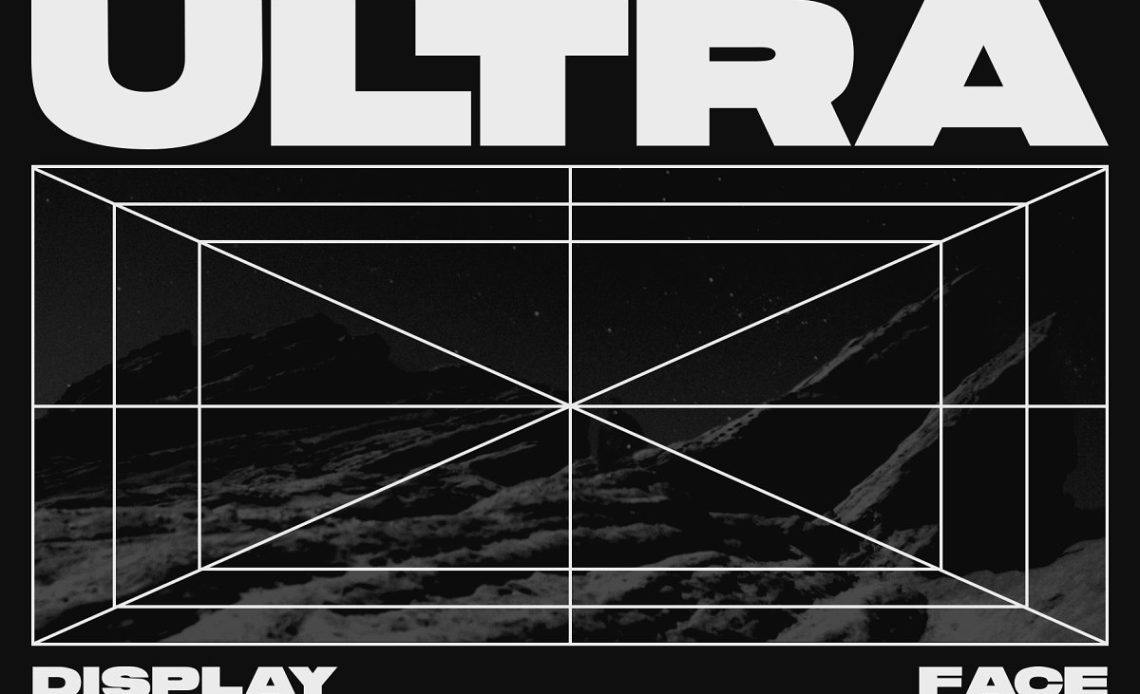
Welcome to NF ULTRA - the ultimate expanded display font designed by Narrators Studio, the creators of some of the most popular fonts on the market. If you're looking for a powerful sans-serif font that's perfect for dark mode designs, look no further than NF ULTRA. This typeface is not just a font - it's a living entity that grows and evolves over time, ensuring that it always meets your needs.
With NF ULTRA, you get more than just a font. You get a creative tool that allows you to push the boundaries of your designs and create bold, clear statements that will capture the attention of your audience. The geometric sans-serif design is stretched to the breaking point, making it perfect for use in any project that requires a high level of impact.
At the moment, NF ULTRA only includes uppercase letters, but we're constantly expanding the family with lowercase letters, more punctuation, ligatures, diacritics, and more varied weights. As new additions are made, the price will increase, so take advantage of our introductory price and get it now.